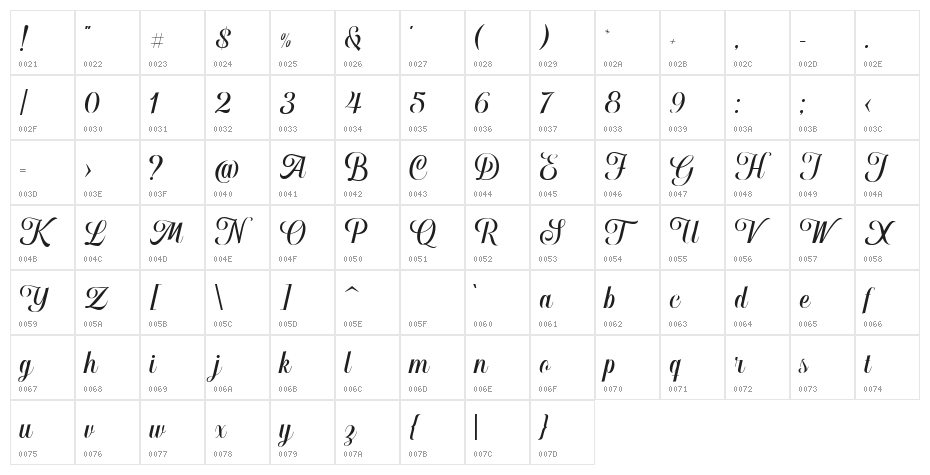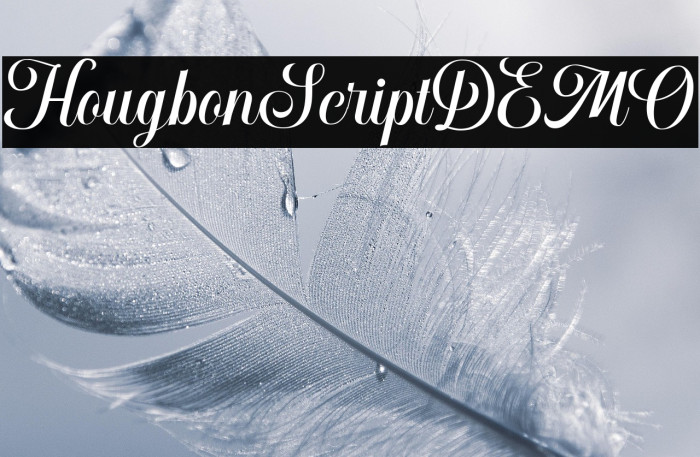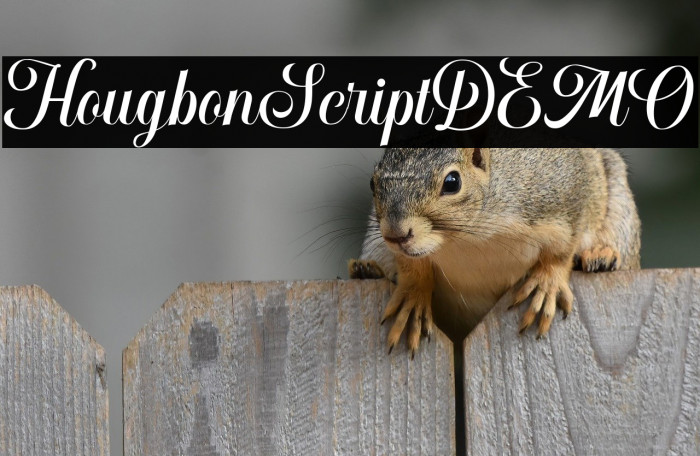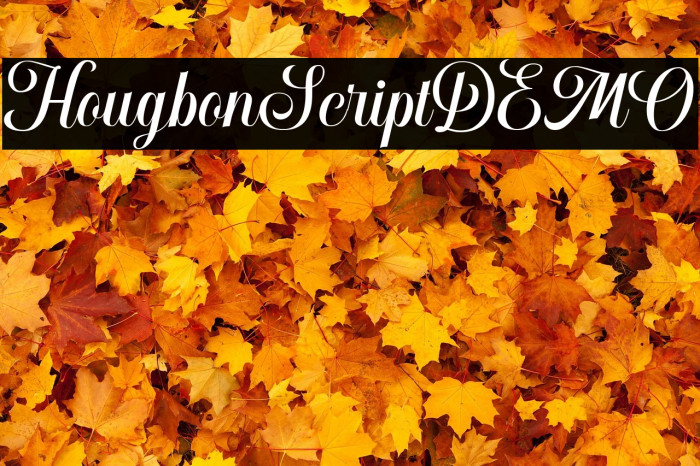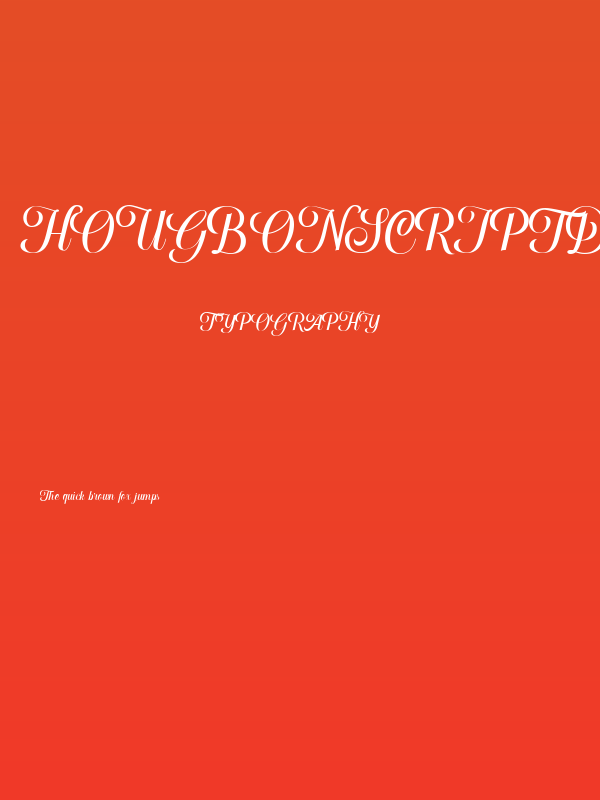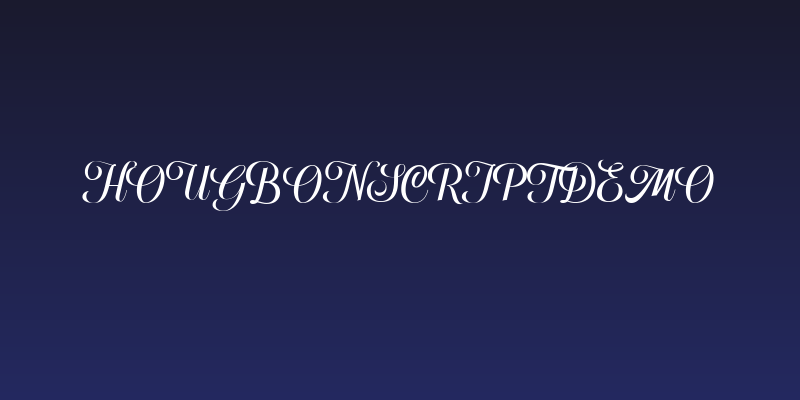
HougbonScriptDEMO Font
This elegant script font features a flowing, cursive style with high contrast between thick and thin strokes. The uppercase letters are ornate and decorative, while the lowercase letters maintain a smooth, connected appearance. The numerals and special characters are designed to complement the overall aesthetic, adding a touch of sophistication. This font is perfect for creating a sense of elegance and formality, making it ideal for invitations, branding, and other projects that require a refined touch.
| Overall Style | Elegant |
| Use Case | Invitations, Branding, Signage |
| Proposed Projects | Ideal for wedding invitations, luxury branding, elegant signage, and formal event programs. |